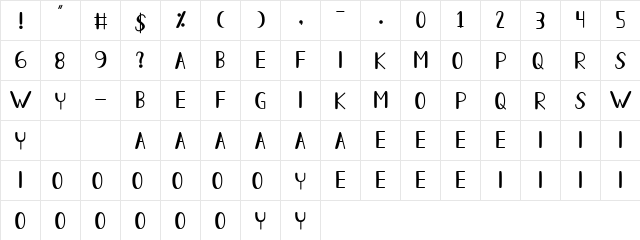
Allure Of The Sun Regular
| Foundry | Faris Graphic Art |
| Designer | Faris Graphic Art |
Design Context for Allure Of The Sun Typeface
Allure Of The Sun offers clean, dependable letterforms without strong stylistic allegiance, making it a practical choice for designers who need flexibility.